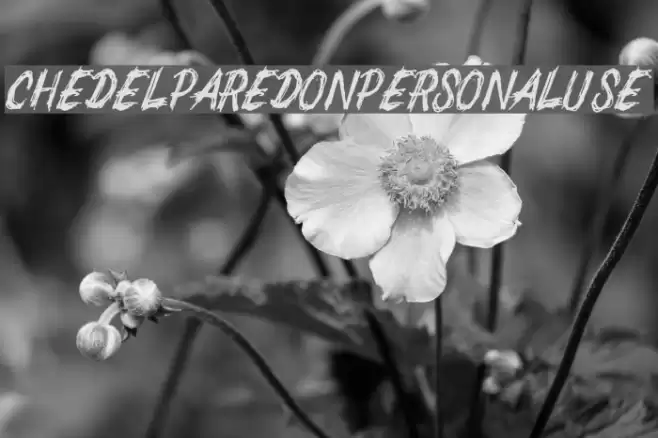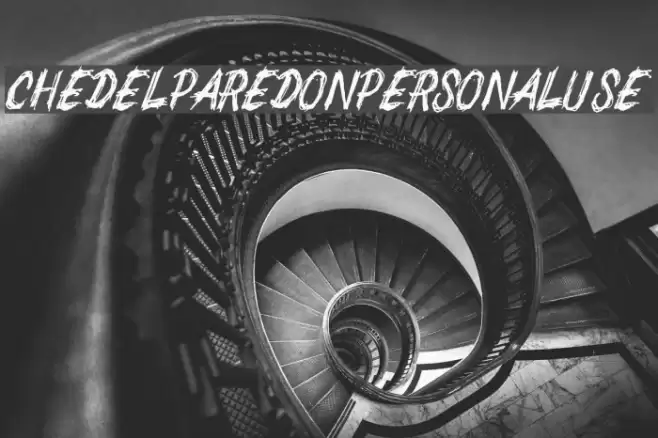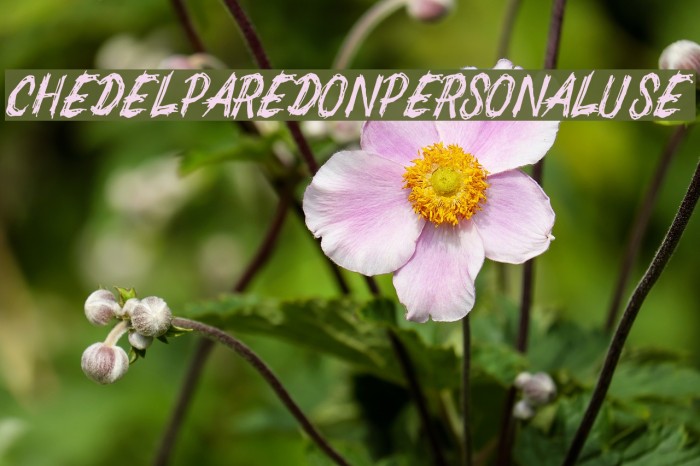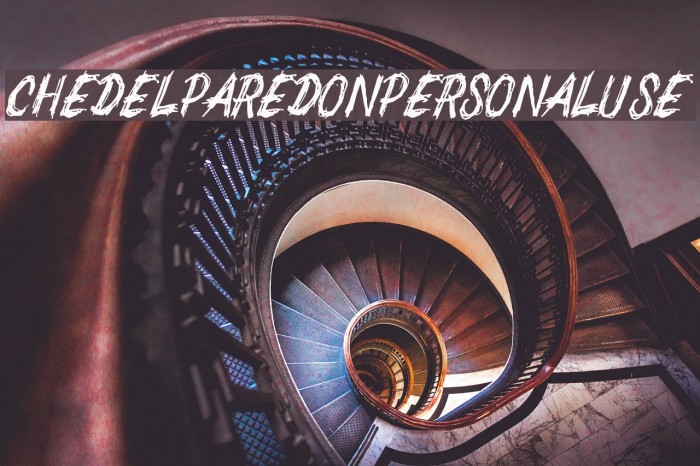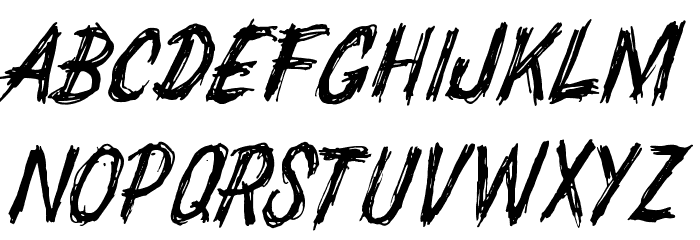
CHEDELPAREDON PERSONAL USE Font
CHEDELPAREDON PERSONAL USE Description
This font features a bold, expressive style with a rough, hand-drawn appearance. The letters are characterized by jagged edges and uneven strokes, giving it a rebellious and dynamic feel. The uppercase letters are particularly striking, with a sense of movement and energy. The font's unique texture and irregularity make it stand out, adding a raw and edgy aesthetic to any design. It's perfect for projects that require a strong visual impact and a touch of individuality.
A bold, hand-drawn font with a rough, expressive style from Uncategorized fonts.
- Proposed Projects: Ideal for posters, album covers, streetwear branding, and any design needing a bold, rebellious touch.